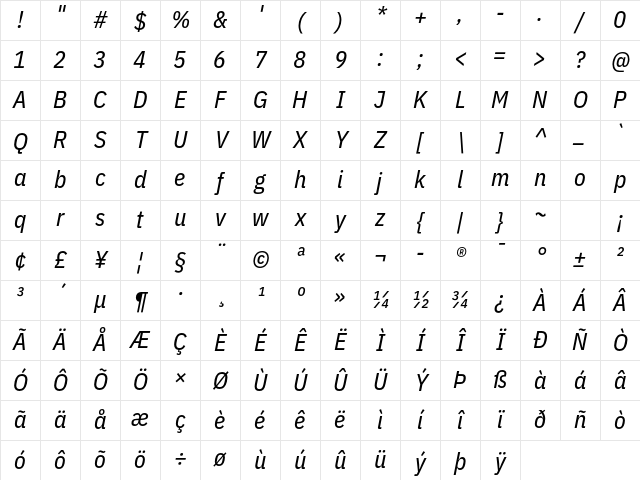
IBM Plex Sans Condensed Text Italic
Foundry: Bold Monday
Designer: Mike Abbink, Paul van der Laan, Pieter van Rosmalen
Design Context for IBM Plex Sans Condensed Text
IBM Plex Sans Condensed Text is a composed and adaptable typeface that performs quietly and consistently across a wide range of design contexts. The slanted form adds forward momentum and visual energy. Its narrow stance lets it pack a punch even in space-constrained designs.
Pro Tip: Use IBM Plex Sans Condensed Text for emphasis, pull quotes, and subheadings where its slanted energy can add rhythm to the layout.
Who designed the IBM Plex Sans Condensed Text Italic font?